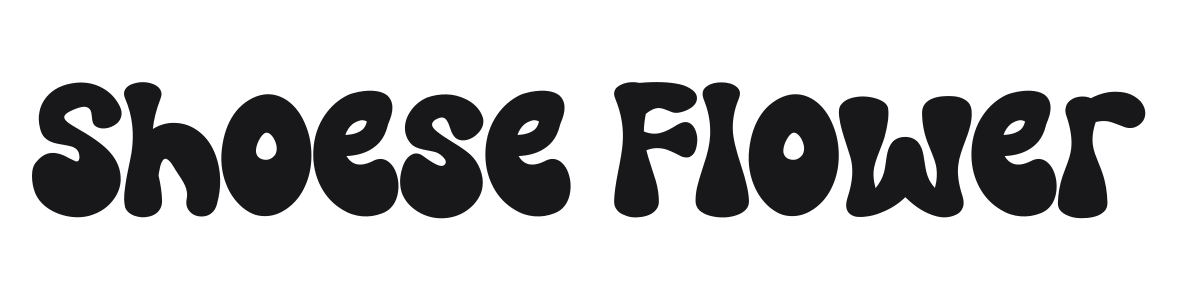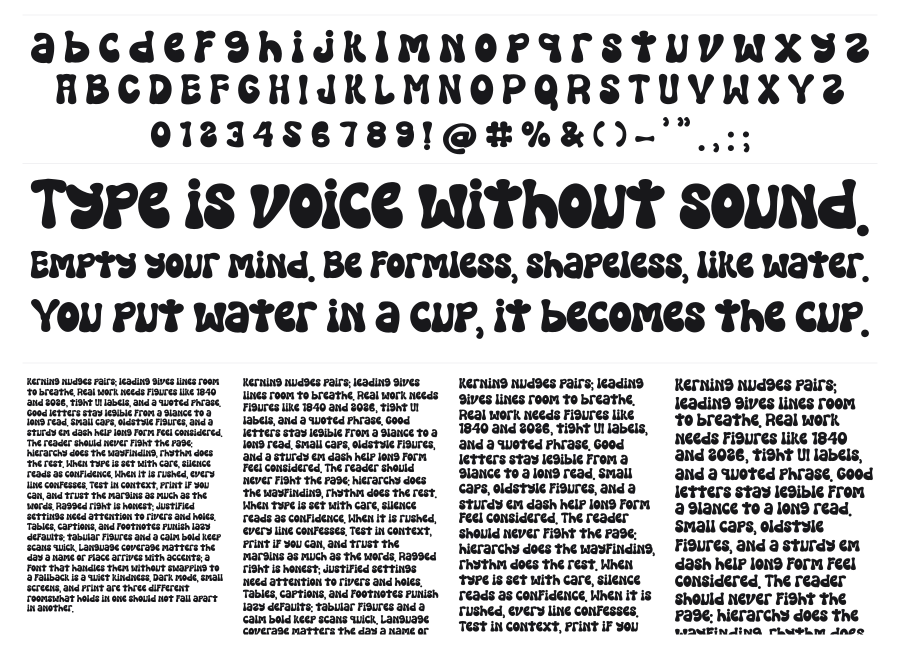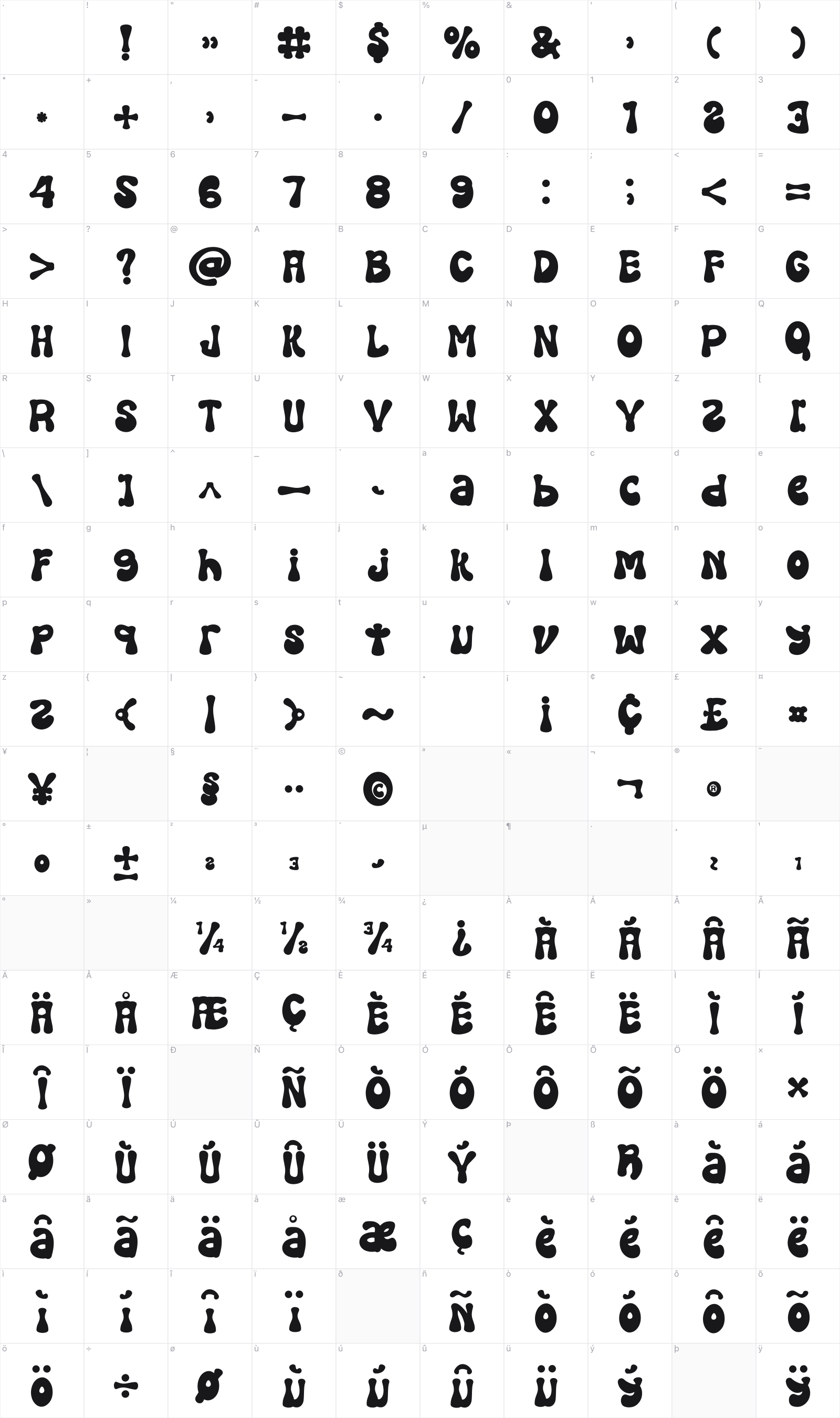
Shoese Flower
Shoese Flower is a heavy, inflated retro display font soaked in 1960s–70s psychedelic energy. Every stroke is pushed to maximum roundness, with bulging curves and nearly closed counters that give the whole word a molten, organic feel. It suits anything that wants that flower-power, groovy-era warmth.